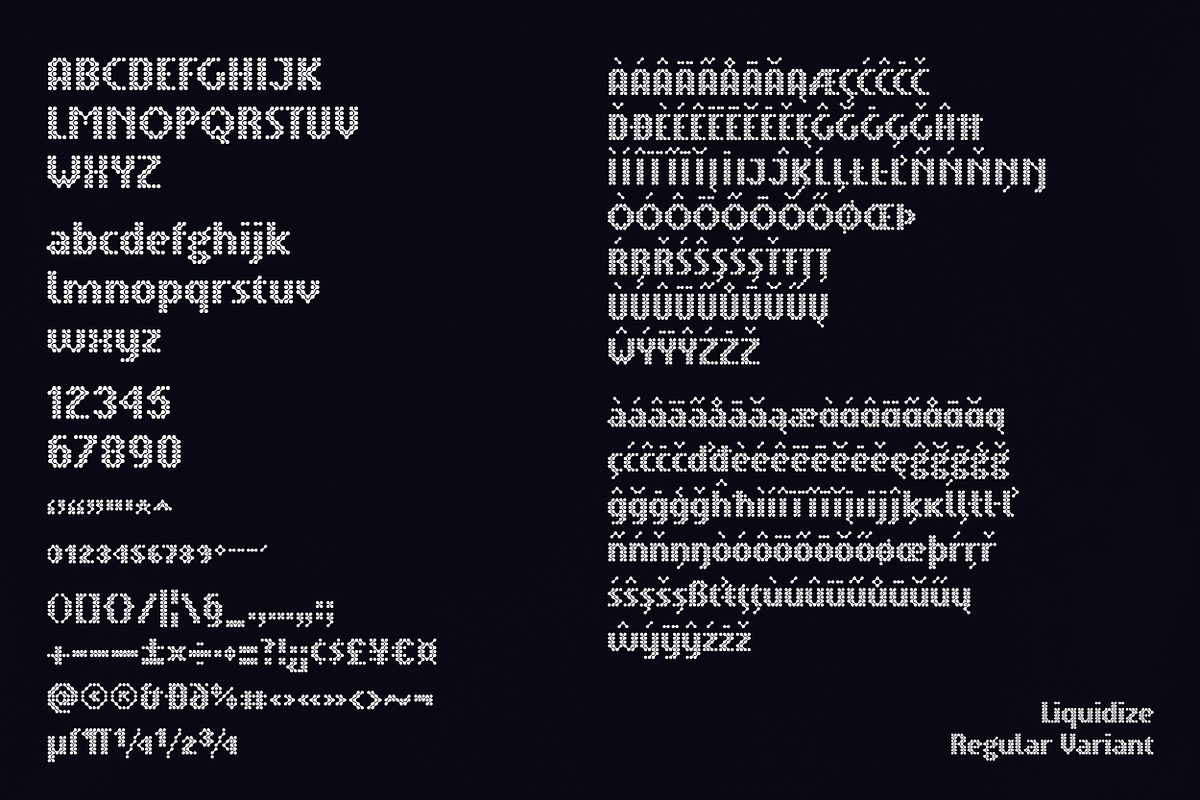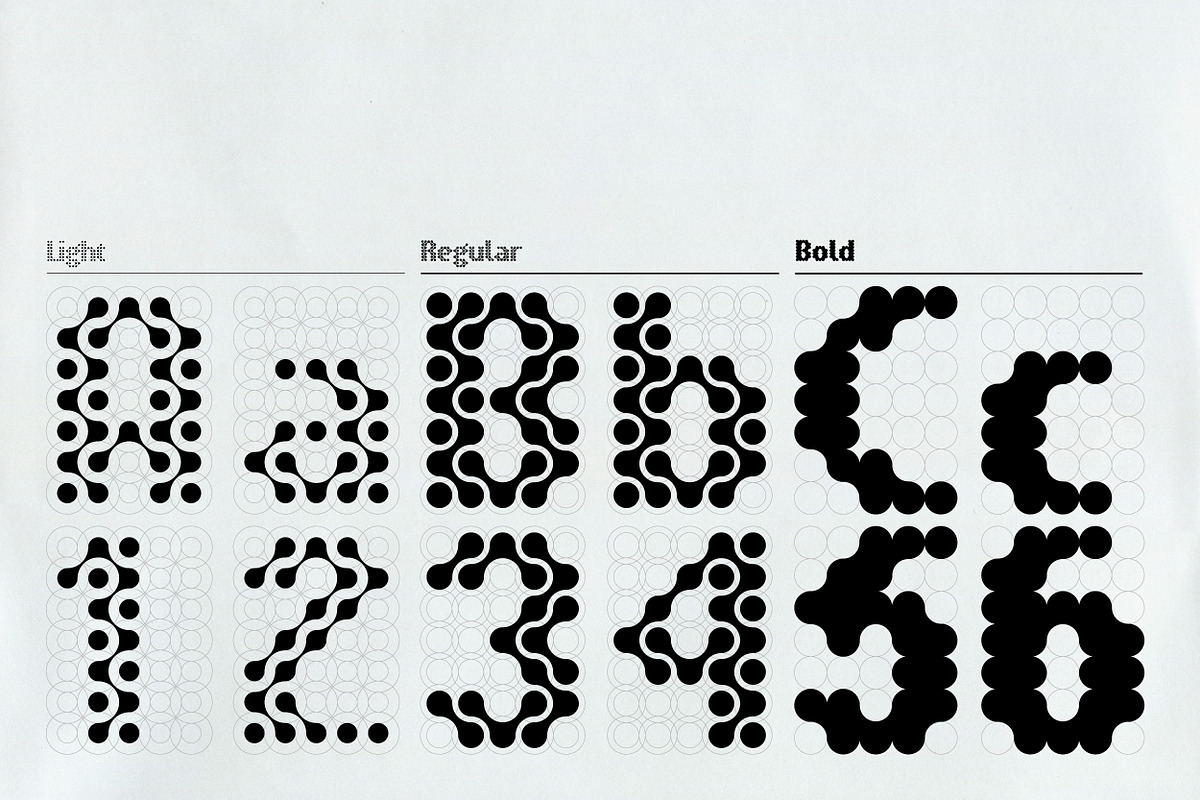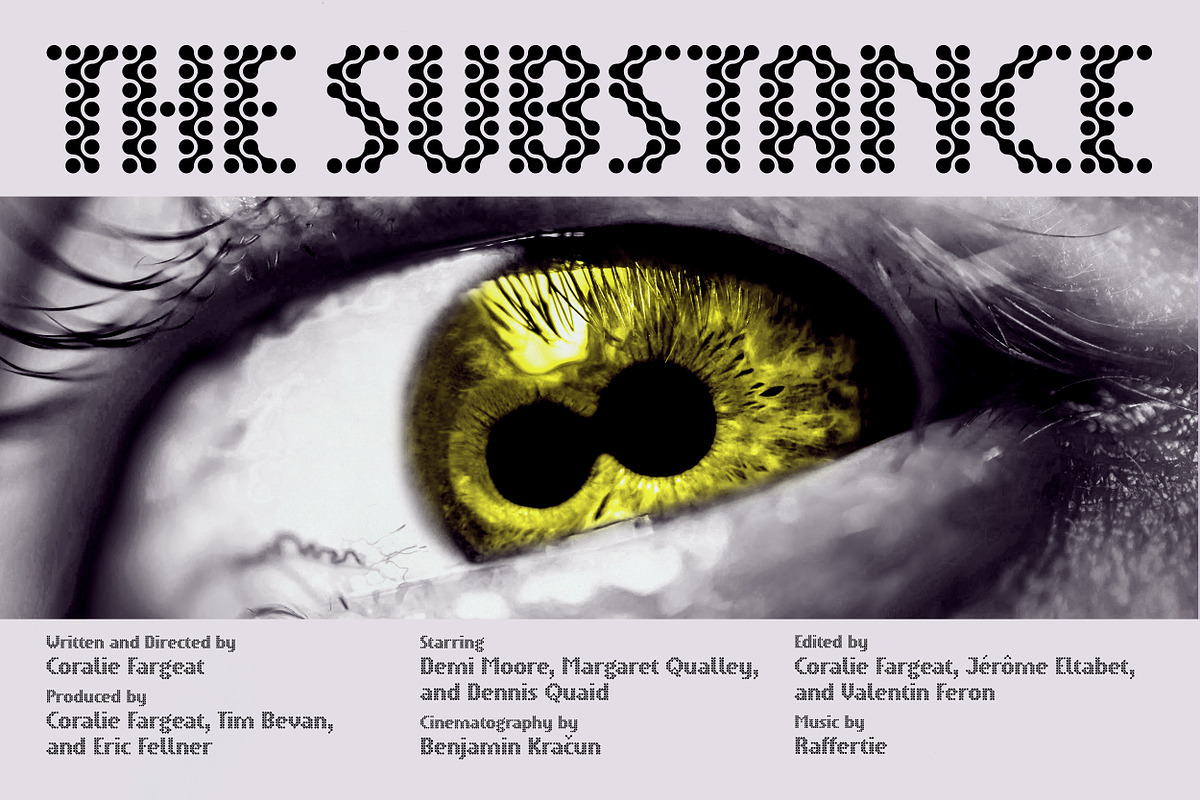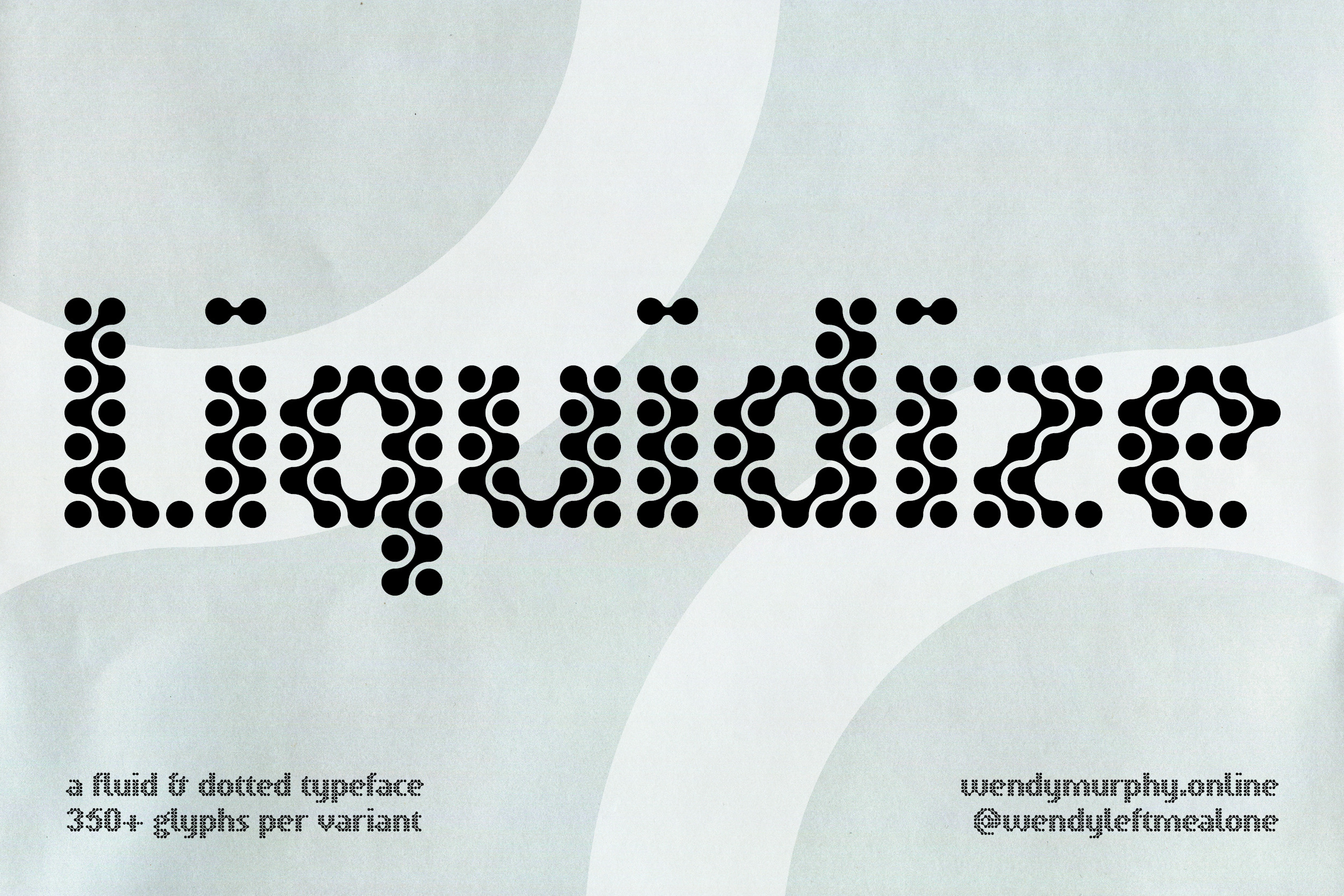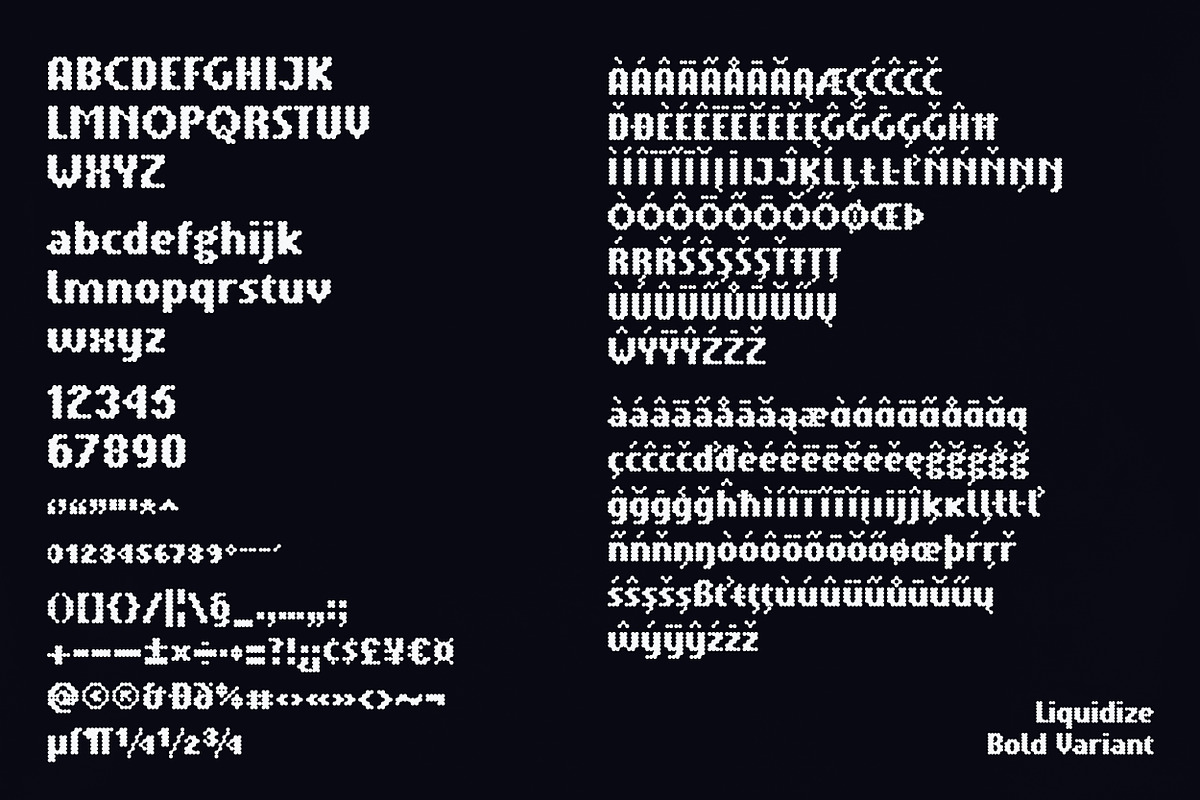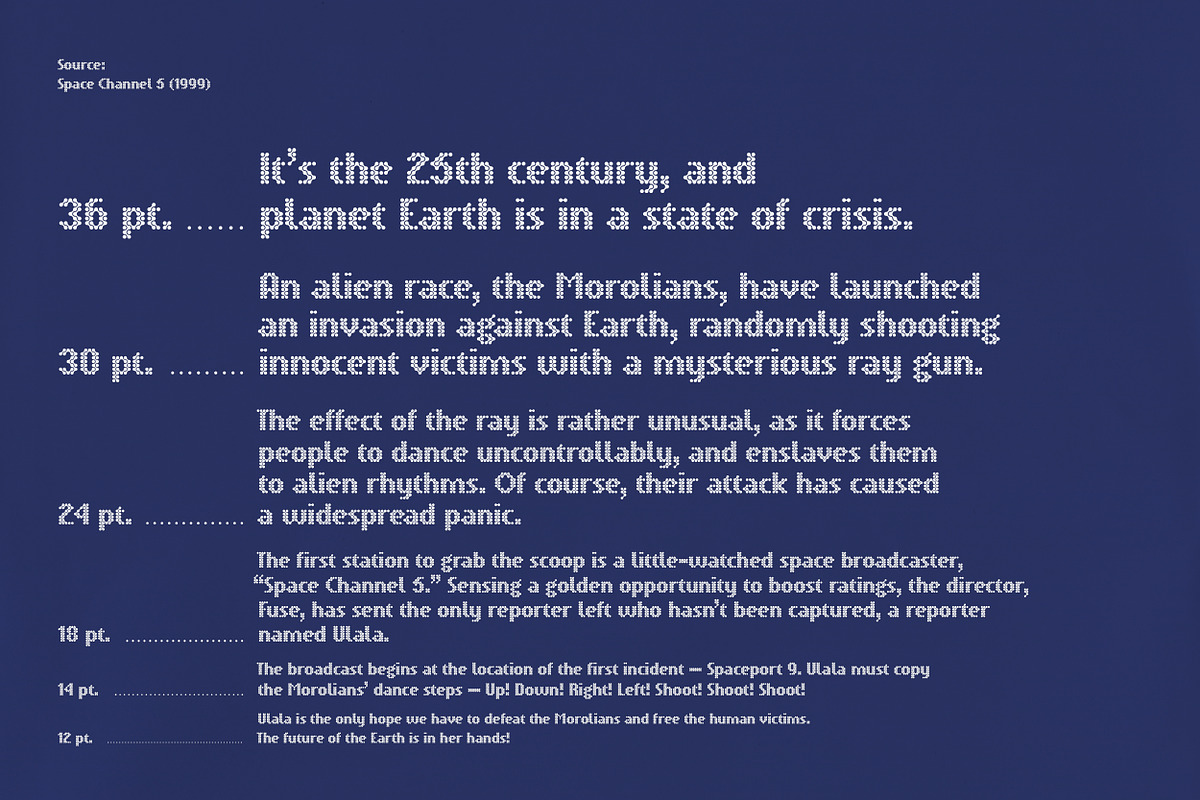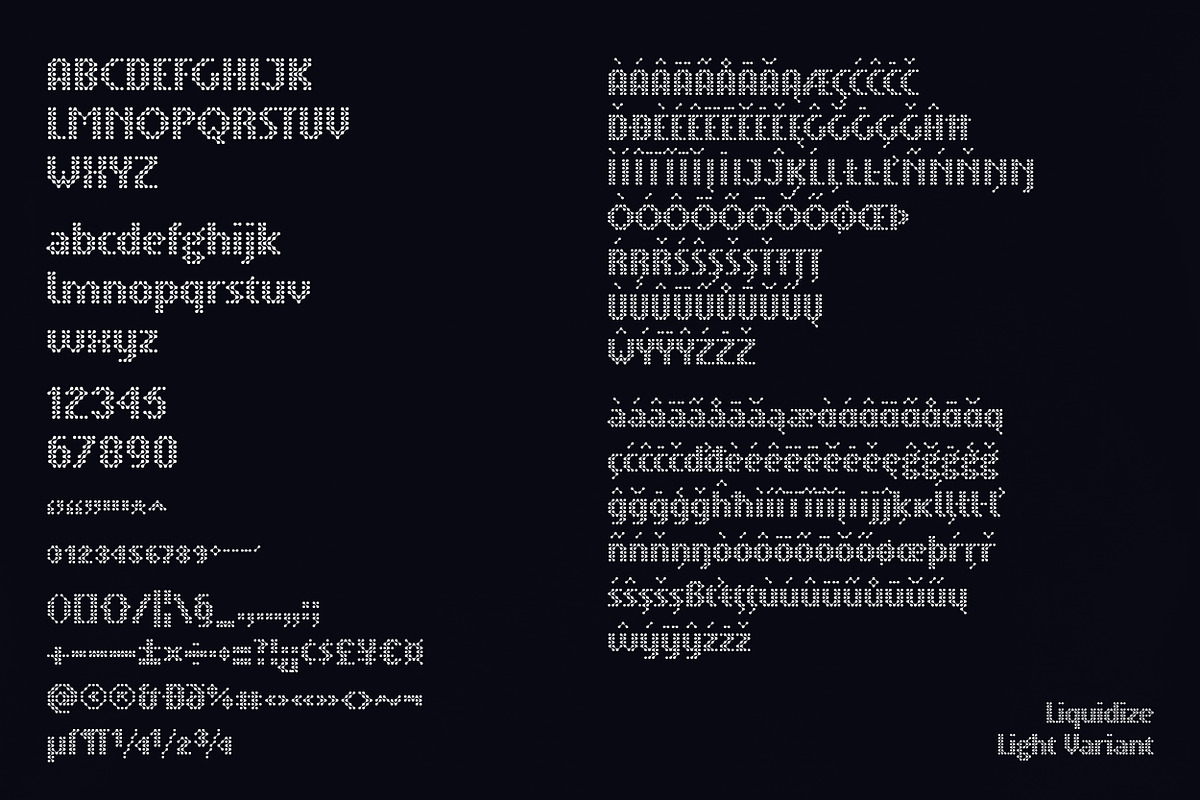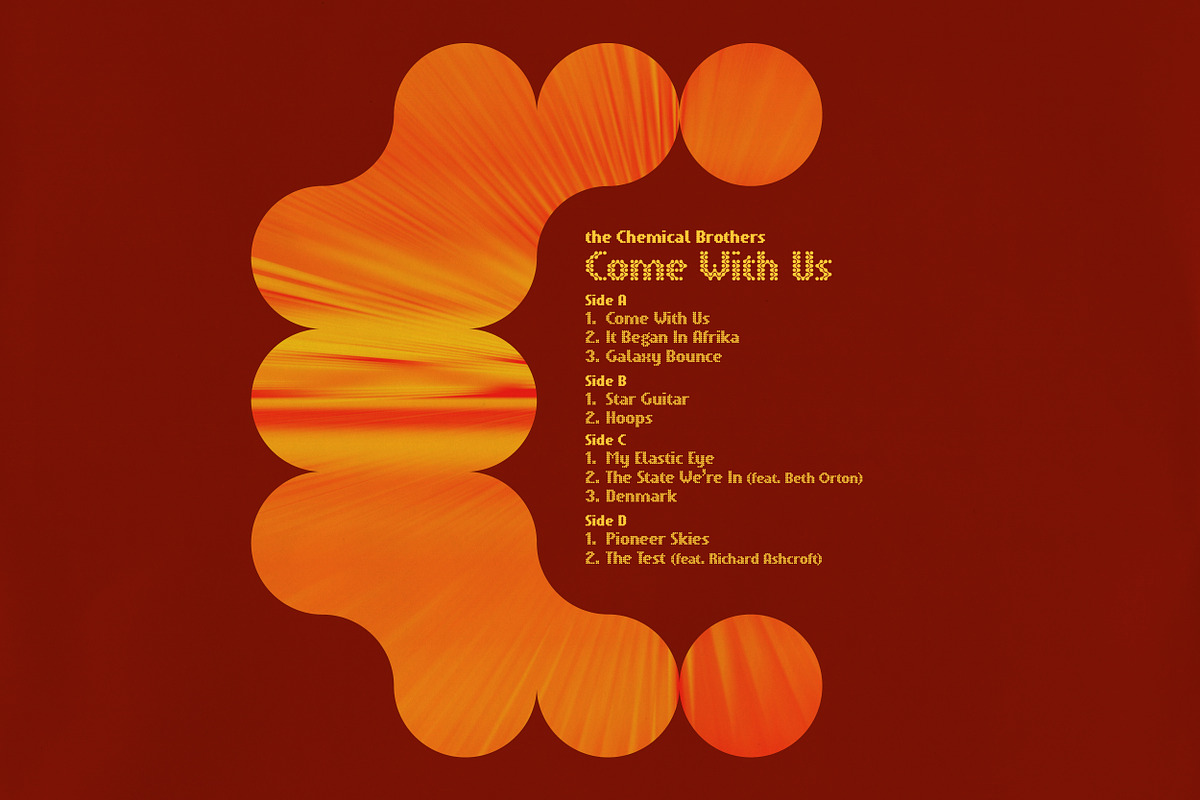
Liquidize | Fluid + Dotted Typeface
Liquidize is a geometric typeface that seeks fluidity in solid structures. Taking inspiration from metaball graphics and science fiction: glyphs were constructed utilizing a circle grid, where connections were allowed on diagonals; highly encouraging mirroring and zigzag patterns.
The typeface contains 3 variants (Light, Regular, and Bold), and includes approx. 357 glyphs per variant (as of February 2025), including: -Uppercase letters -Lowercase letters -Numerals -Symbols (Punctuation, Formulas, etc.) -Accent Marks (Uppercase and Lowercase)
Glyphs included as of February 2025: ABCDEFGHIJKLMNOPQRSTUVWXYZ abcdefghijklmnopqrstuvwxyz 1234567890 ⁰¹²³⁴⁵⁶⁷⁸⁹ ¼½¾ ?!¿¡#%&’*+±×÷-–—.,:;/~=¬@()[]{}|¦^_`´”‘’“”„… $¢§£€¥¤©®ª°º¯¨¸µ¶«»‹›Ððſ ÀÁÂÃÄÅÆÇÈÉÊËÌÍÎÏÑÒÓÔÕÖØÙÚÛÜÝ àáâãäåæçèéêëìíîïñòóôõöøùúûüýÿ ĀāĂ㥹ĆćĈĉĊċČčĎďĐđĒēĔĕĖėĘęĚě ĜĝĞğĠġĢģǦǧĤĥĦħĨĩĪīĬĭĮįİıIJijĴĵĶķĸĹĺĻļĽľĿŀŁł ŃńŅņŇňʼnŊŋŌōŎŏŐőŒœÞþŔŕŖŗŘřŚśŜŝŞşŠšȘș ŢţŤťŦŧȚțŨũŪūŬŭŮůŰűŲųŴŵŶŷŸŹźŻżŽž